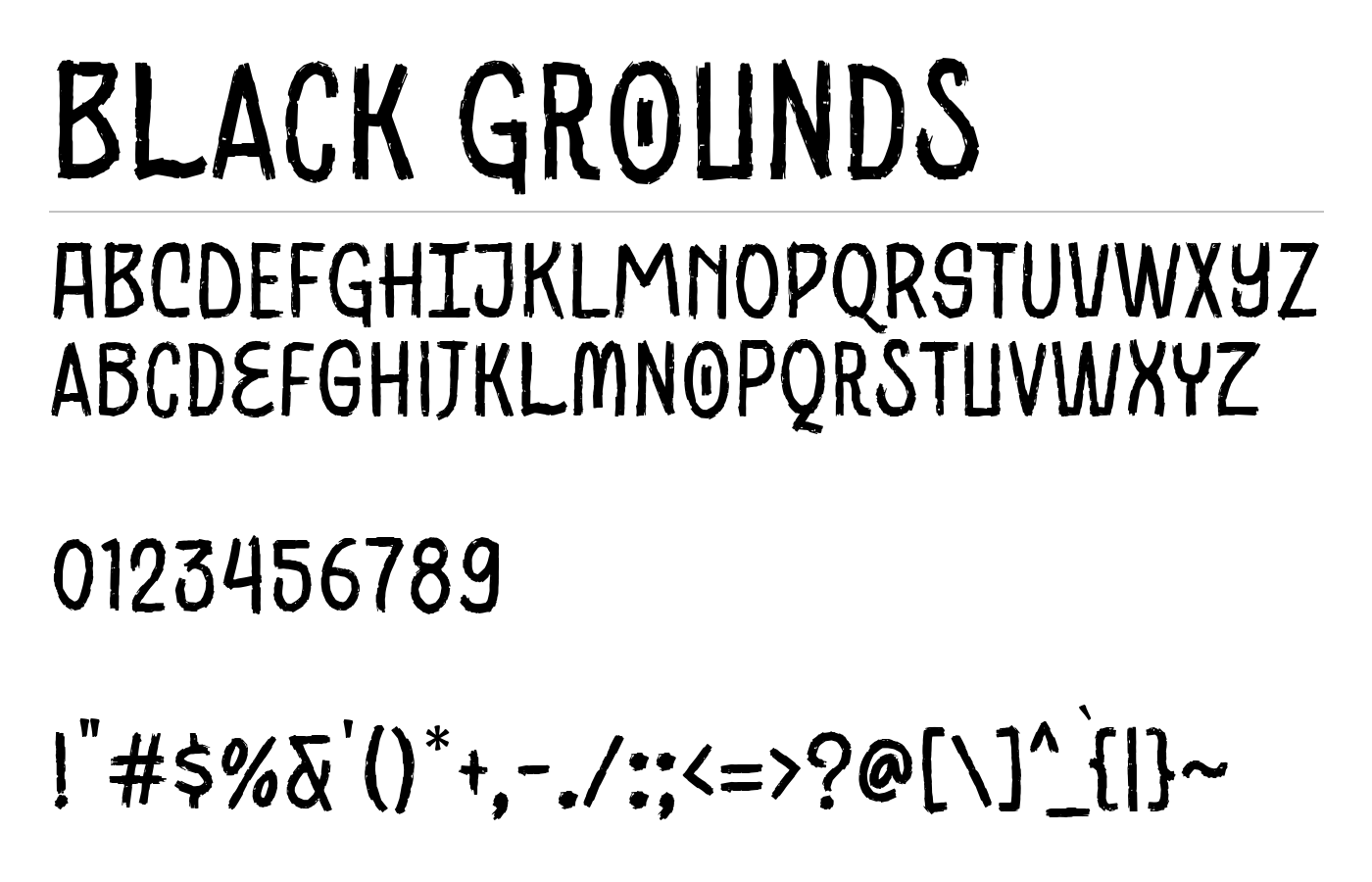
Black Grounds is a rough, hand-drawn sans serif font with a casual and slightly distressed look, featuring consistent medium weight and condensed proportions that give it an energetic, informal vibe. Its uneven strokes and playful irregularities make it ideal for creative, approachable designs such as posters, branding for unconventional or artistic projects, and headlines that need a bold, quirky personality. This font works well in contexts where a handcrafted, spontaneous feel is desired, adding character and visual interest without compromising readability.
Black Grounds Font
About Black Grounds Font
| Font family | Black Grounds Font |
| Designer | Umar Al Farouq |